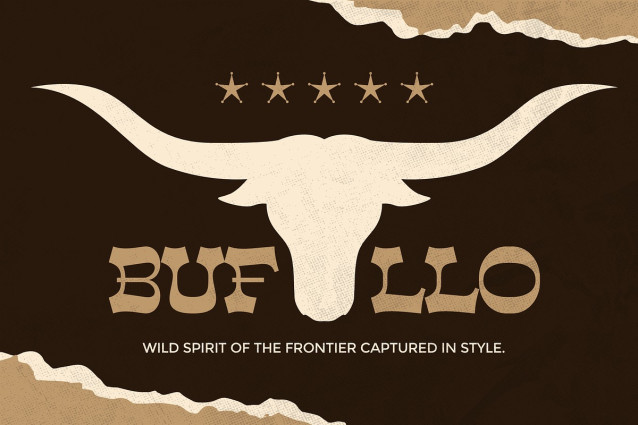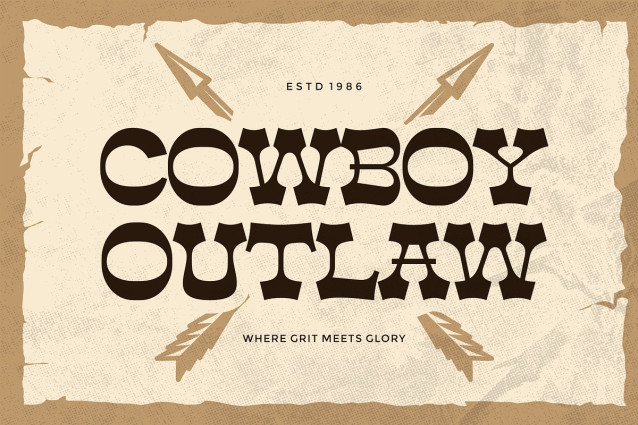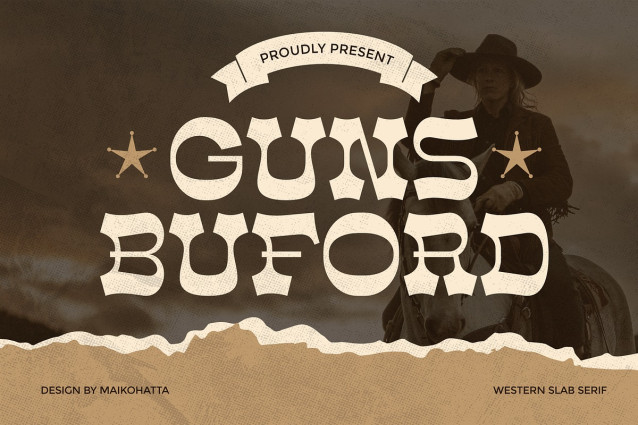
Guns Buford Font is a bold and rugged Western-style slab serif font that captures the spirit of the Wild West. With its strong curves, sharp edges, and distinctive letterforms, this typeface is perfect for creating designs with a vintage cowboy or outlaw vibe. Ideal for posters, logos, branding, movie titles, signage, and apparel, Guns Buford adds a powerful touch of frontier charm to any project.
Whether you’re working on a western-themed event, rustic branding, or old-style display design, Guns Buford delivers authenticity and a striking visual impact.